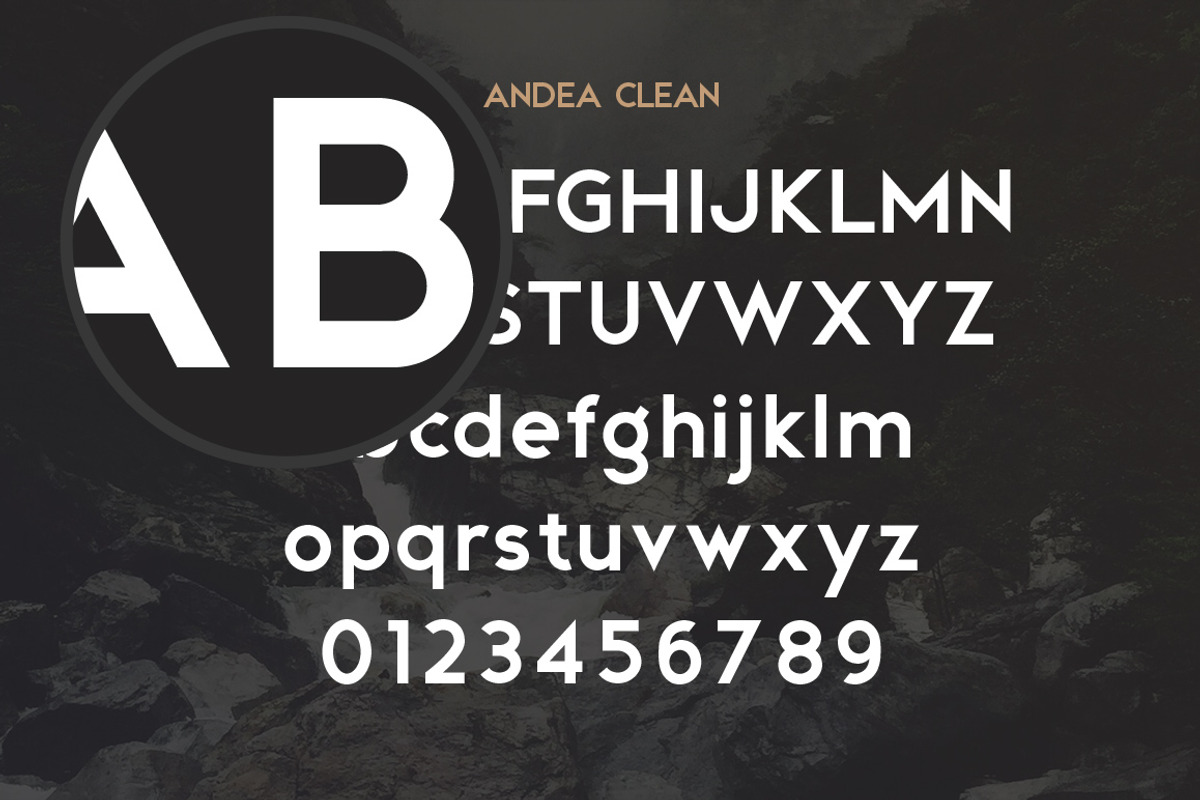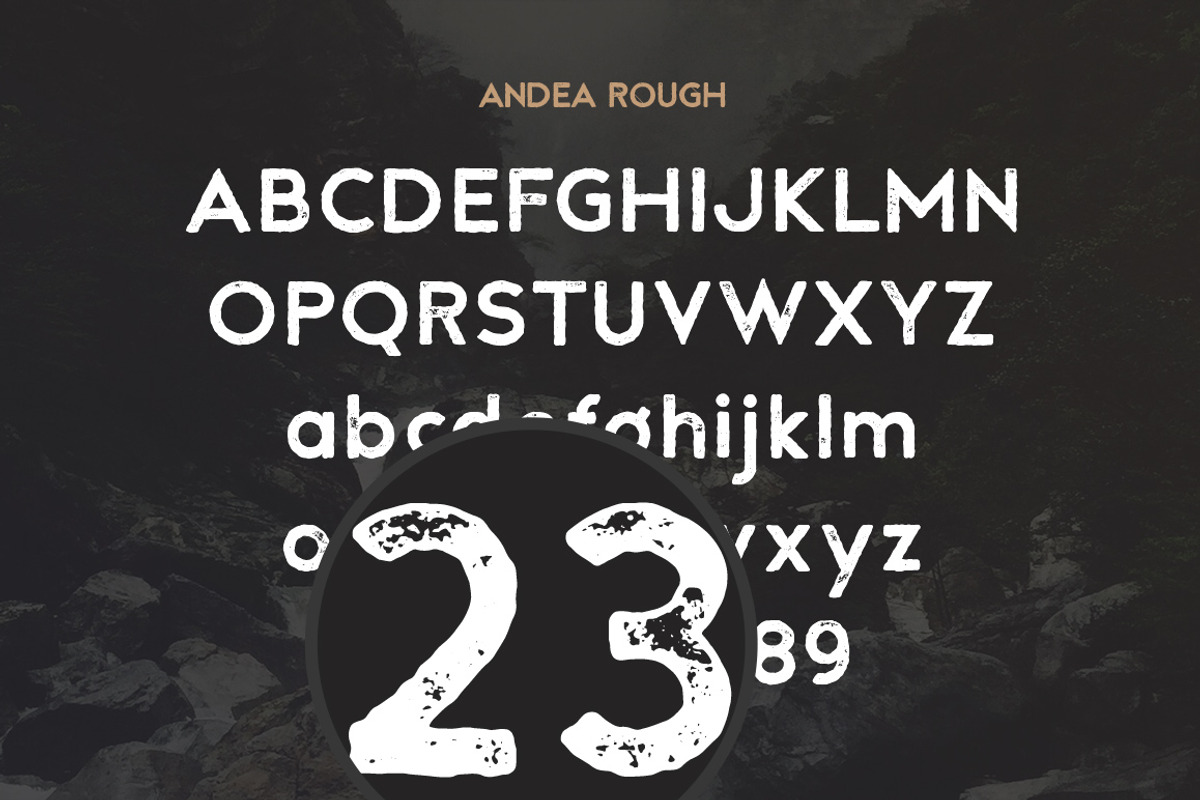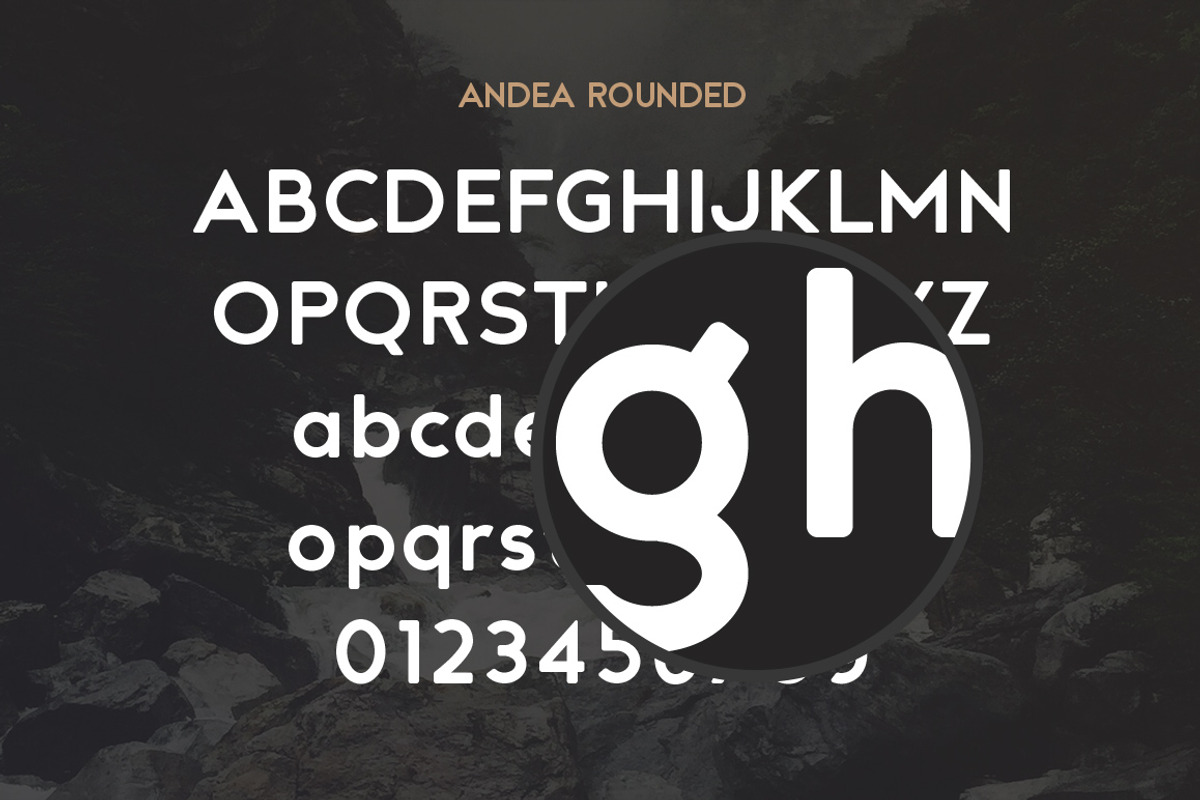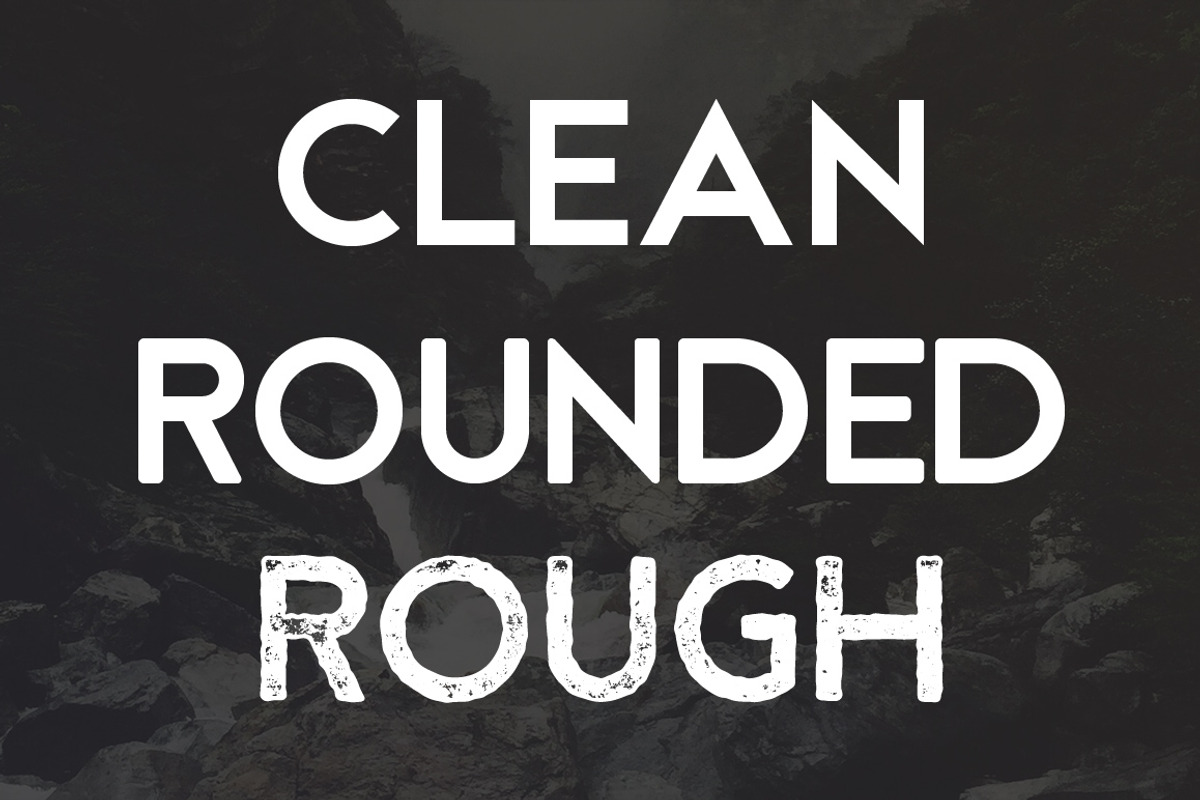
Andea - Geometric Sans Serif Font
Andea - Geometric Sans Serif Font by Medialoot is a font selected for branding, posters, packaging, typography.
- Andea includes uppercase and lowercase characters, numbers, accents and common symbols.
Andea - Geometric Sans Serif Font by Medialoot fits naturally into Branding, posters, packaging, typography.